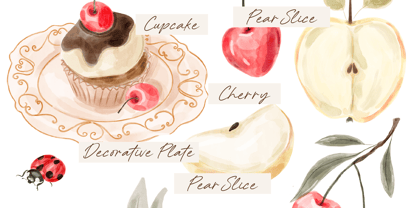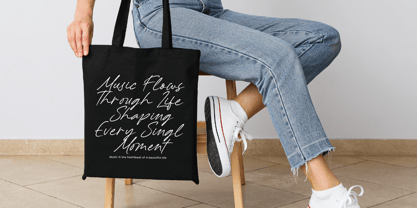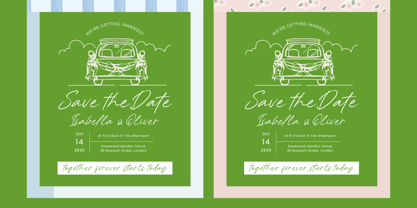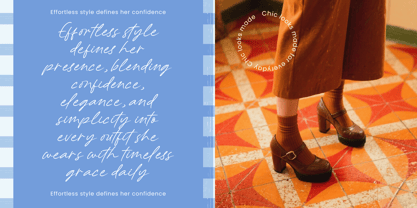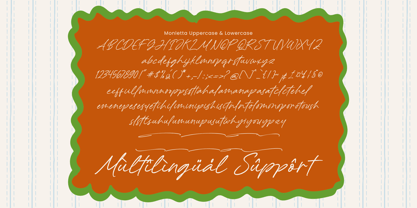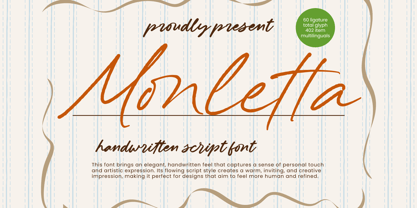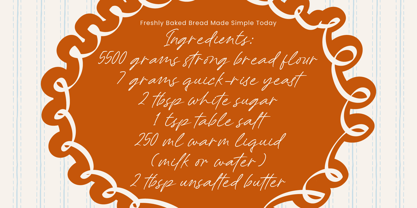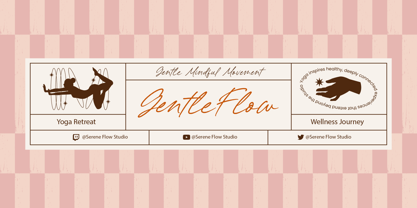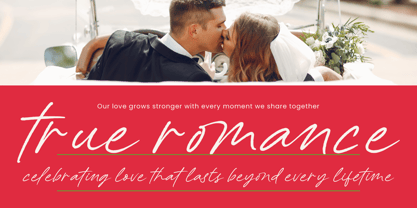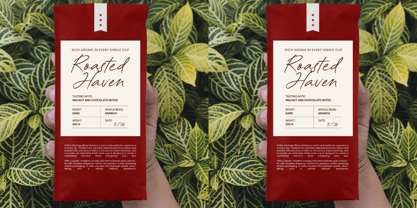
Monletta
The Monletta Font Family was designed by Heru Utama Putra and published by Letterena Studios. Monletta contains 2 styles and family package options. More about this family
Monletta - Handwritten Script Font Monletta is an elegant and refined handwritten script font that perfectly blends artistic expression with a personal touch. The flowing strokes and graceful curves create a warm, inviting feel that’s perfect for designs that seek to evoke a sense of sophistication and charm. Whether you’re working on branding, invitations, logos, or social media graphics, Monletta’s delicate and fluid style offers a unique, human quality that stands out. With 60 ligatures and a total of 402 glyphs, Monletta provides versatility and smooth text flow, ideal for any project that requires a personal, yet polished feel. This font’s elegant design is perfect for everything from editorial to packaging and offers a refined handwritten aesthetic that adds a personal, human touch to any design. Whether used for wedding invitations, upscale branding, or creative projects, Monletta elevates your work by making it feel more human, artistic, and memorable.